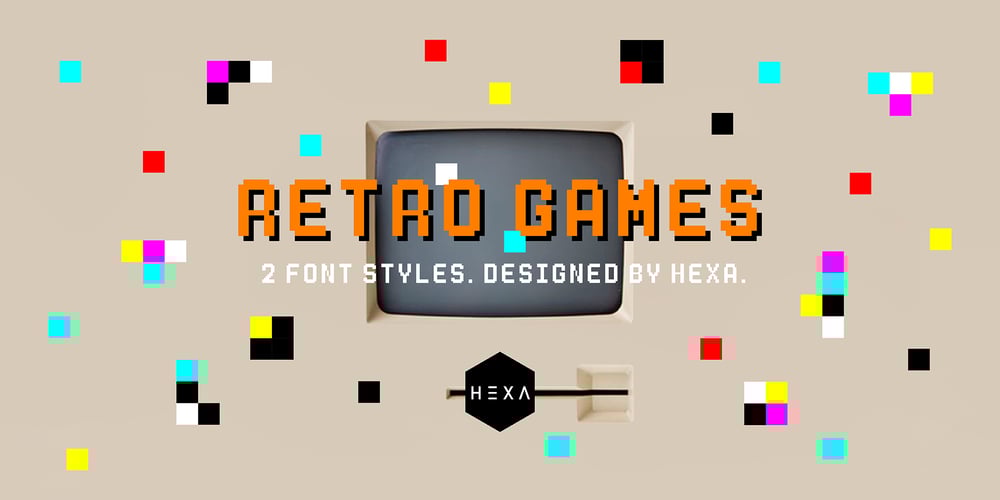
Retro Games Font Family was designed by Junsu Hwang and published by Hexa. Retro Games contains 2 styles and family package options. Introducing HEXA’s second family-font, Retro Games Font.The RetroGames font is a witty reinterpretation of the fonts found in 90s 16-bit games that we enjoyed when we were young, presented as bitmap imaged fonts.It offers superior legibility and aesthetic sensibility compared to many other existing bitmap fonts.For instance, while most bitmap fonts create one stroke with 1 pixel or have various thicknesses in pixels, we have standardized it to a maximum of one stroke with 1-3 pixels, enhancing both legibility and aesthetic appeal.Since there are many similar bitmap fonts, we wanted to reinterpret it as a genre of its own.Our latest designed fonts HEXA, we noticed some shortcomings in legibility, and we aim to address those shortcomings in this bitmap font, Retro Games.Our RetroGames font, which brings back memories of our analog past, can be a valuable design element in many design works.”※ RetroGames is Latin-based and a completely crafted font that consists of 2 typefaces. Each typeface contains 195 sets of characters. This font family is in all-caps fonts.※The font family includes ‘Dropline’ and ‘Black.’ ‘Dropline’ comes with a shadow effect, while ‘Black’ is designed without a shadow for simplicity.”※RetroGames is a monospaced fonts. So kerning is not applied.